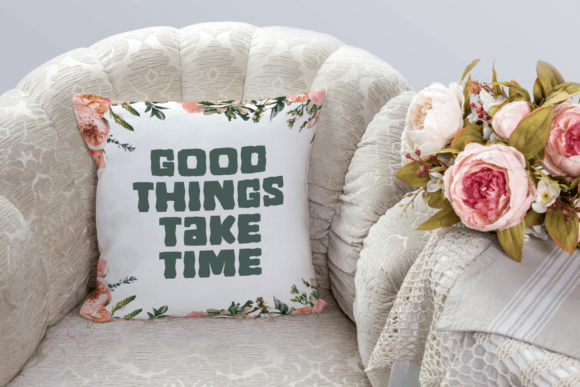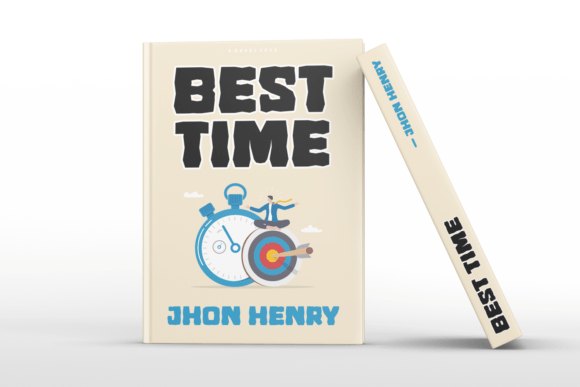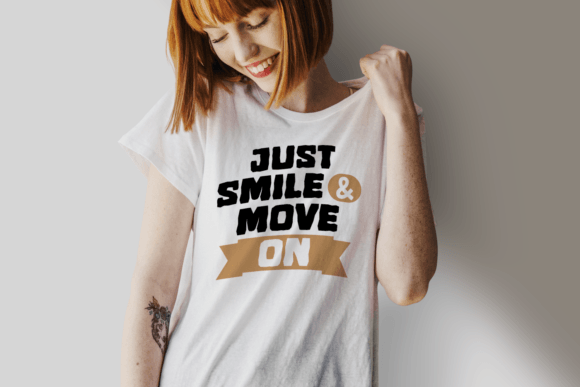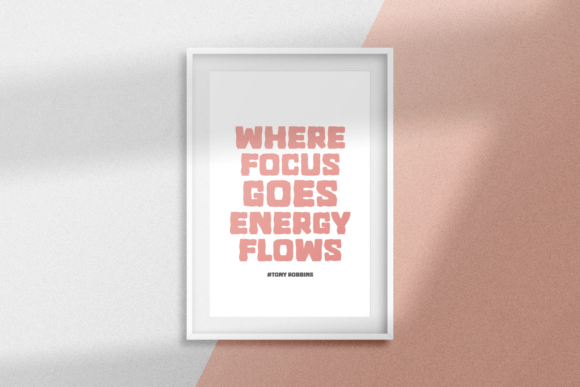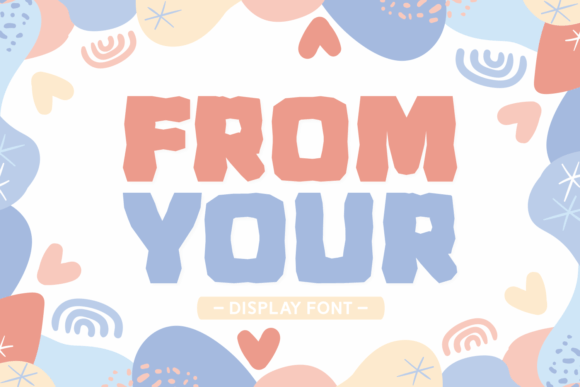
Introducing From Your Font: The Ultimate Choice for Fun and Playful Designs
Are you tired of using the same old fonts for your branding and packaging projects? Do you want to add a touch of fun and creativity to your designs? Look no further than From Your Font, a bold and thick font that’s perfect for making a statement. In this article, we’ll take a closer look at what makes From Your Font so special and how it can elevate your designs to the next level.
The Perfect Combination of Fun and Creativity
From Your Font is a chubby font that’s designed to grab attention. Its bold and thick letters are perfect for creating fun and playful designs that will stand out from the crowd. Whether you’re working on a branding project, packaging design, or social media graphics, From Your Font is the perfect choice. Its unique and quirky style will add a touch of personality to your designs and make them more engaging and memorable.
Key Features of From Your Font
- Bold and Thick Letters: From Your Font features bold and thick letters that are perfect for creating eye-catching designs.
- Fun and Playful Style: This font is designed to add a touch of fun and creativity to your designs, making it perfect for brands that want to stand out.
- Versatile: From Your Font can be used on a variety of branding and packaging projects, including business cards, brochures, posters, and more.
- Easy to Read: Despite its bold and thick style, From Your Font is easy to read, making it perfect for use in a variety of contexts.
How to Use From Your Font in Your Designs
From Your Font is a versatile font that can be used in a variety of ways. Here are a few ideas to get you started:
- Branding Projects: Use From Your Font to create bold and eye-catching logos, business cards, and letterheads.
- Packaging Design: Add a touch of fun and creativity to your packaging designs with From Your Font. It’s perfect for product labels, packaging inserts, and more.
- Social Media Graphics: Use From Your Font to create engaging and memorable social media graphics, including Facebook posts, Instagram stories, and Twitter headers.
Why Designers and Crafters Love From Your Font
From Your Font has quickly become a favorite among designers and crafters, and for good reason. Here are a few reasons why:
- Unique Style: From Your Font offers a unique and quirky style that’s hard to find in other fonts.
- Versatile: From Your Font can be used on a variety of projects, making it a great addition to any designer’s toolkit.
- What is From Your Font?: From Your Font is a bold and thick font that’s perfect for creating fun and playful designs.
- What type of projects can I use From Your Font for?: From Your Font can be used on a variety of branding and packaging projects, including business cards, brochures, posters, and more.
- Is From Your Font easy to read?: Yes, despite its bold and thick style, From Your Font is easy to read, making it perfect for use in a variety of contexts.